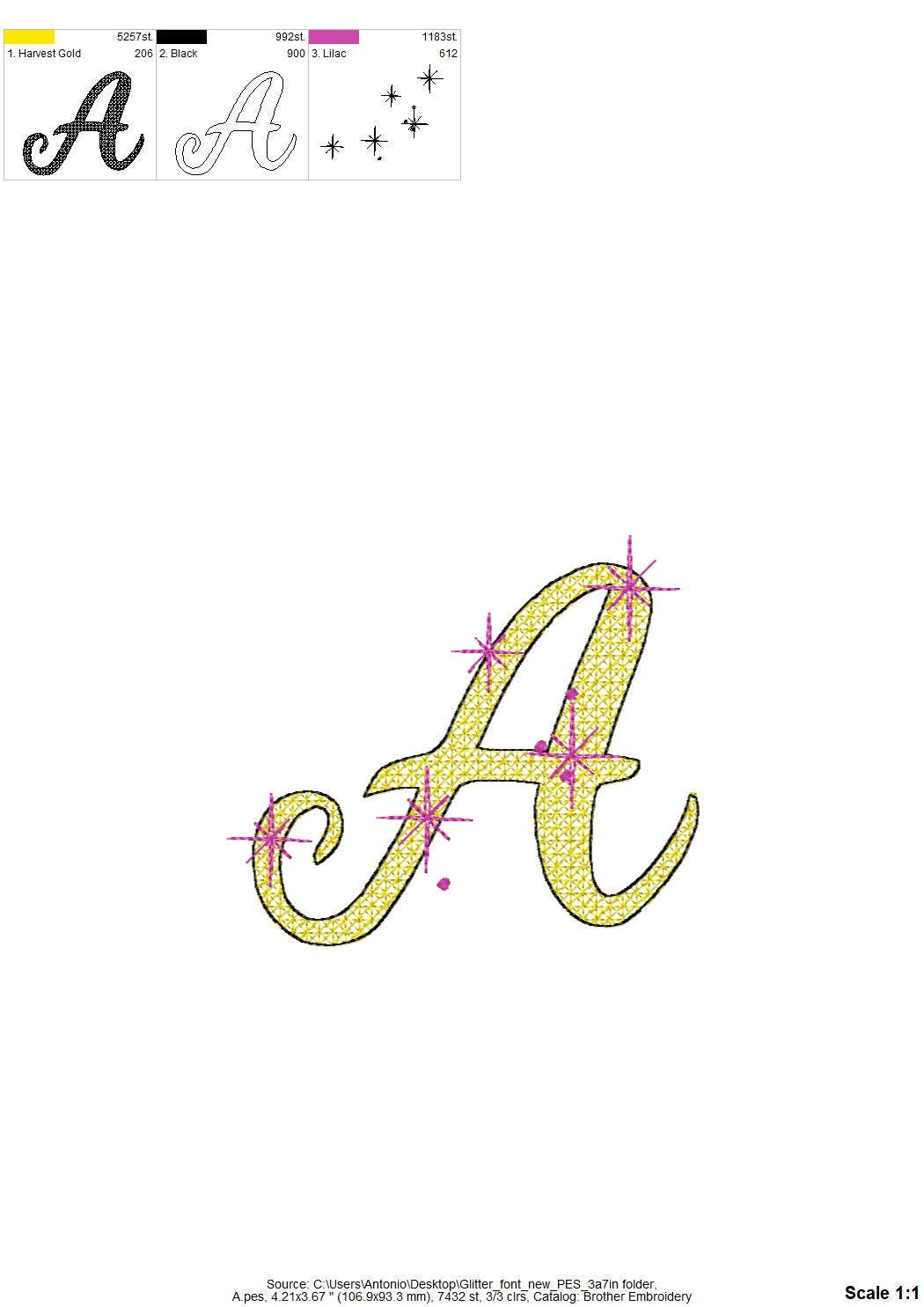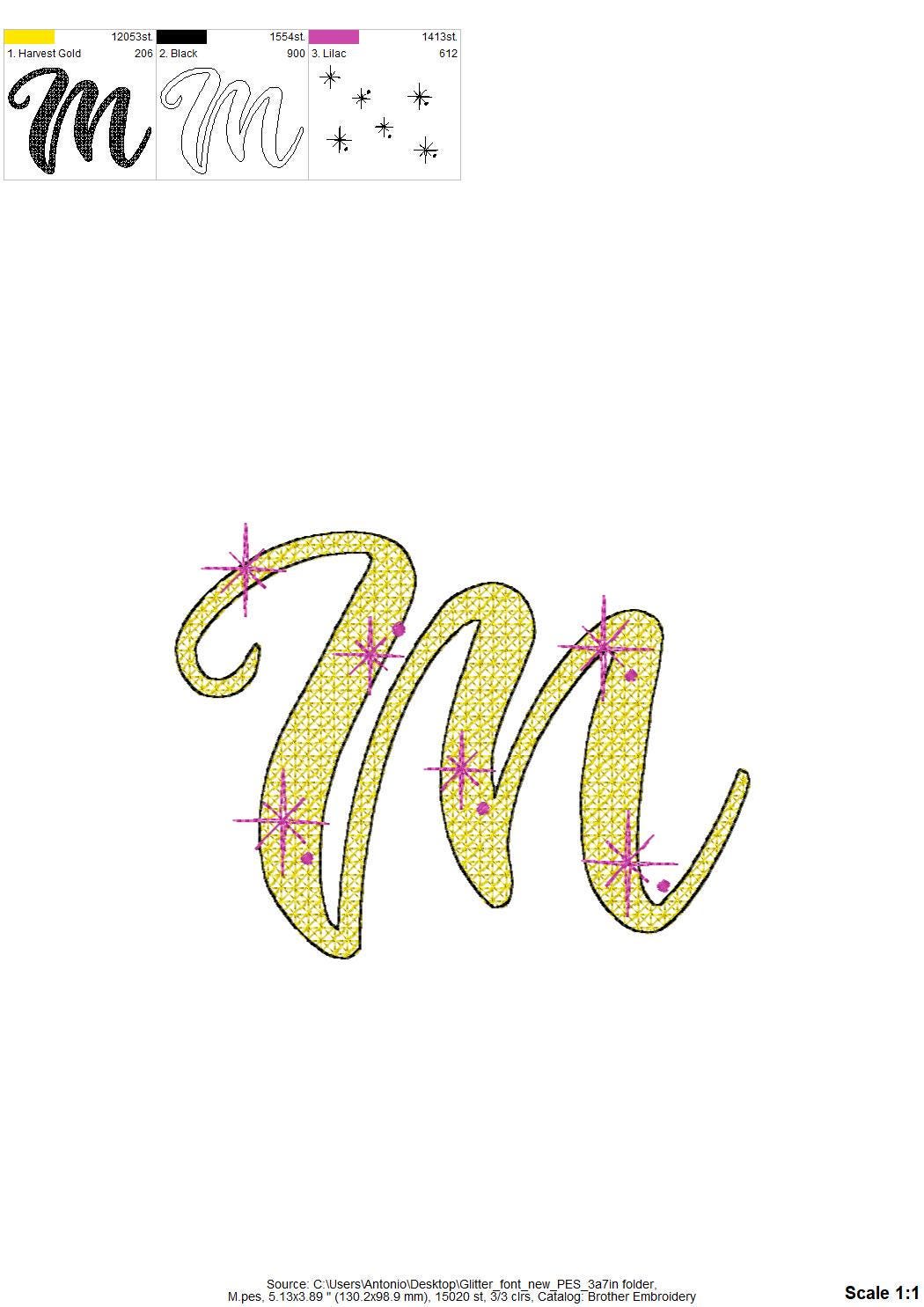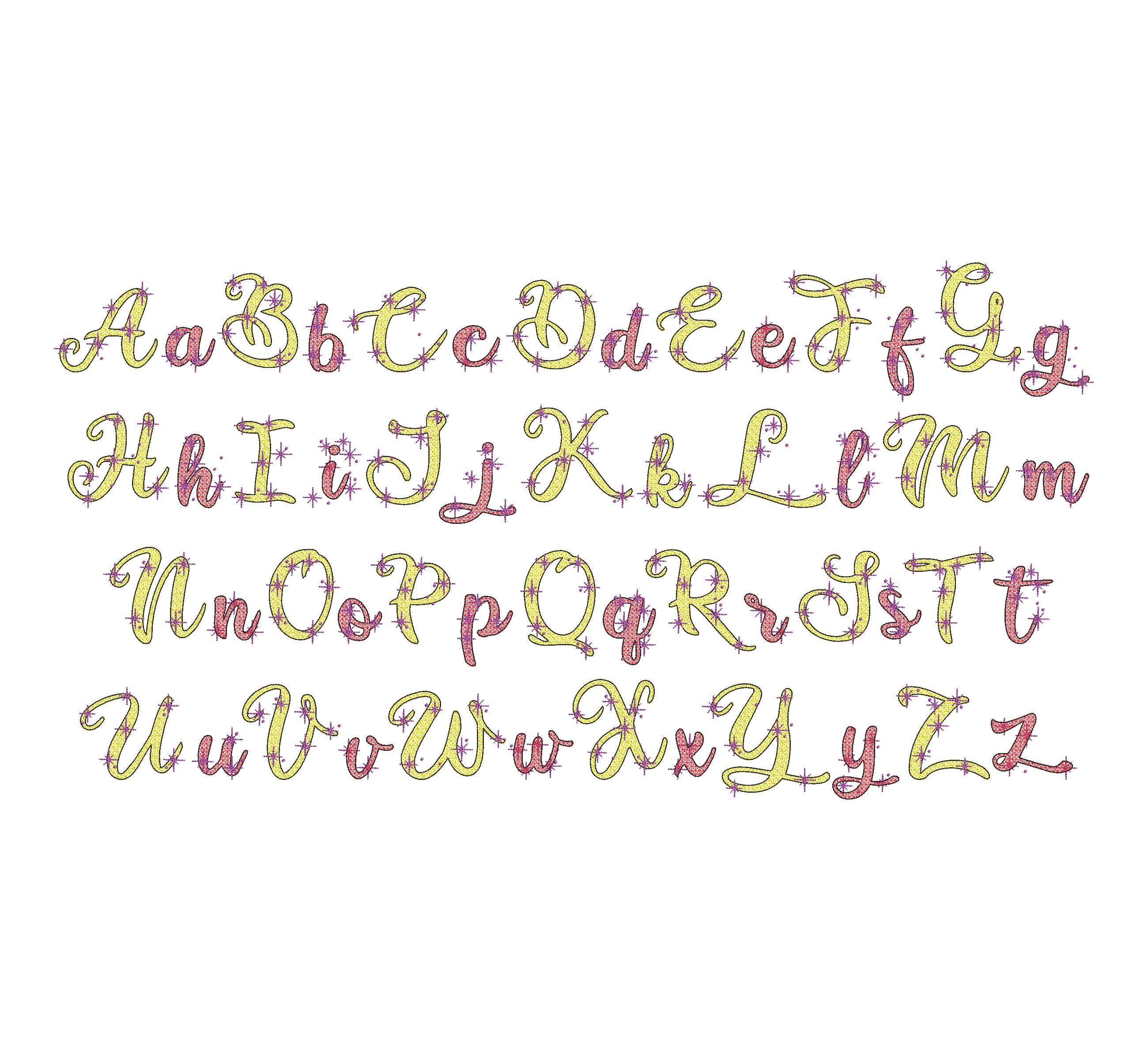
Glitter sparkling FONT night starry sky alphabet kids girl princess name monogram machine embroidery designs in assorted sizes, BX included
It looks incredible! The design looks like lace, the background fabric looks through.
Whole alphabet A-Z uppercase and lowercase.
This font is lovely but omg the amount of thread breaks using it. I’ve done far bigger designs and fonts with far more details and didn’t have any issues. I love this creator and have bought lots of other designs so I was surprised it hadn’t worked out. Wouldn’t use the font again but won’t stop me purchasing from this creator as their designs are amazing!
What a fun font and perfect for any girly girl! Love it!